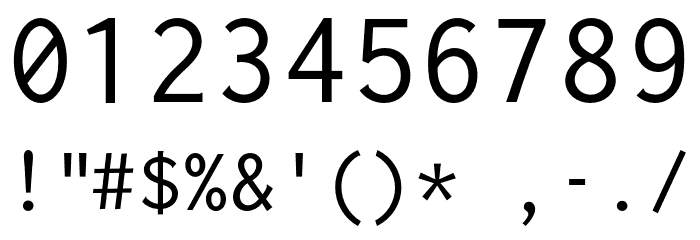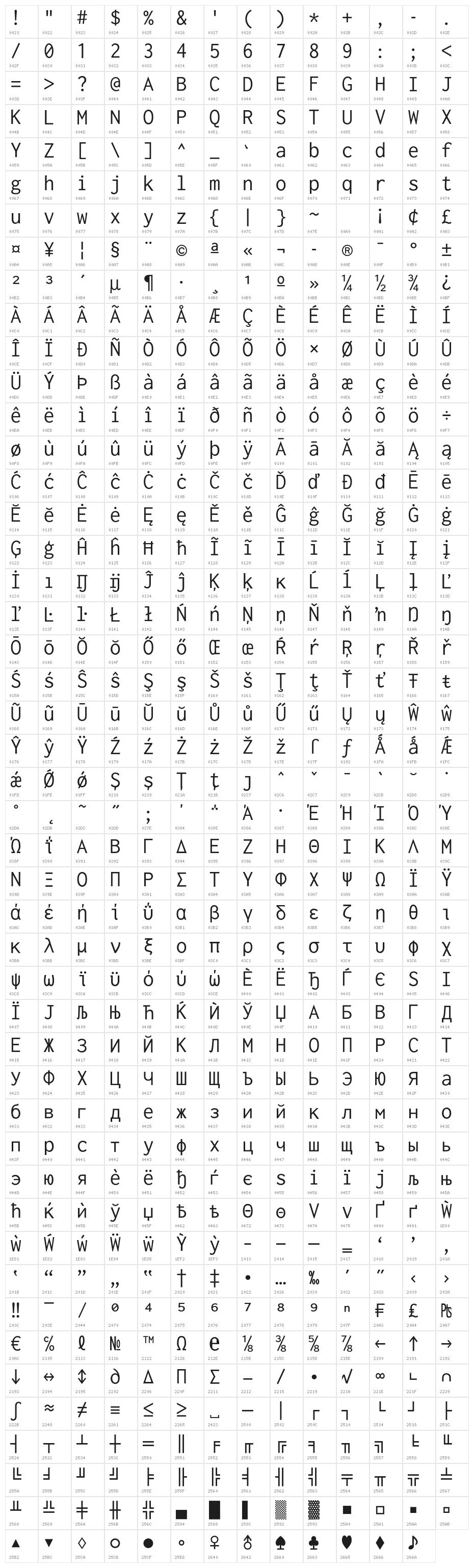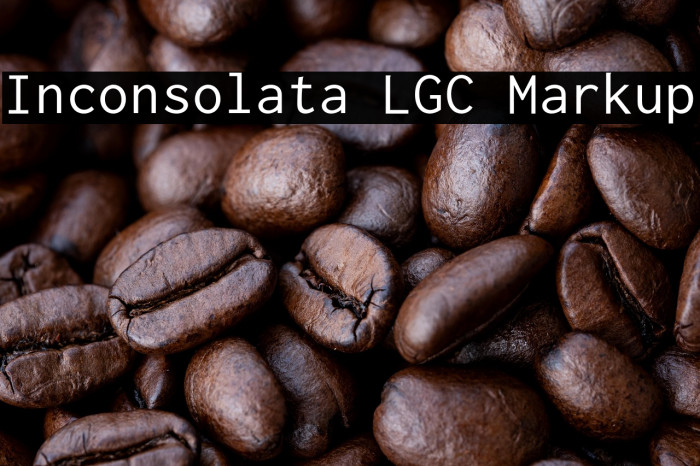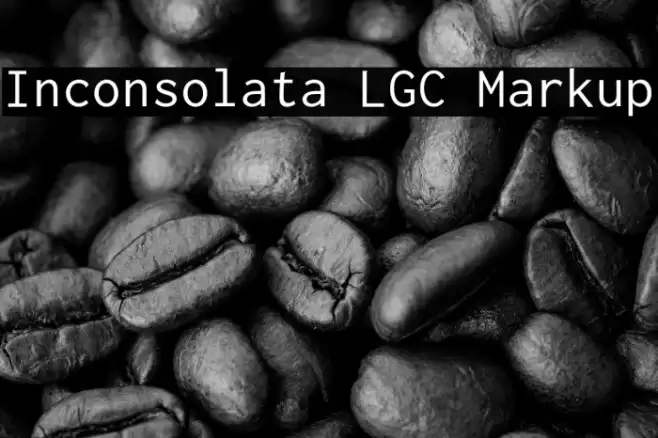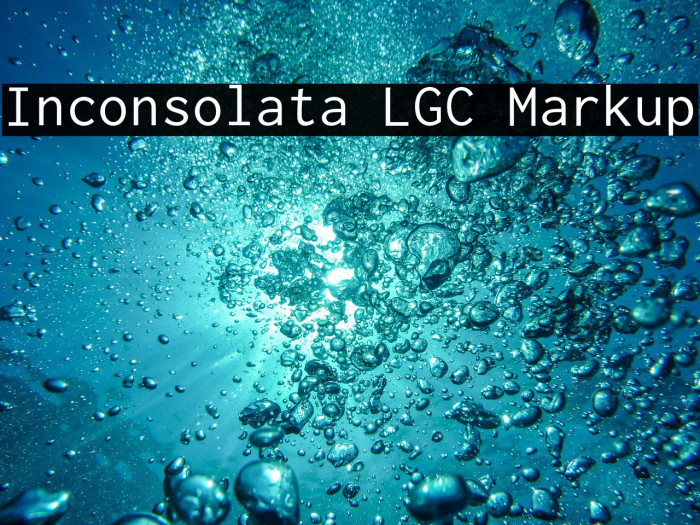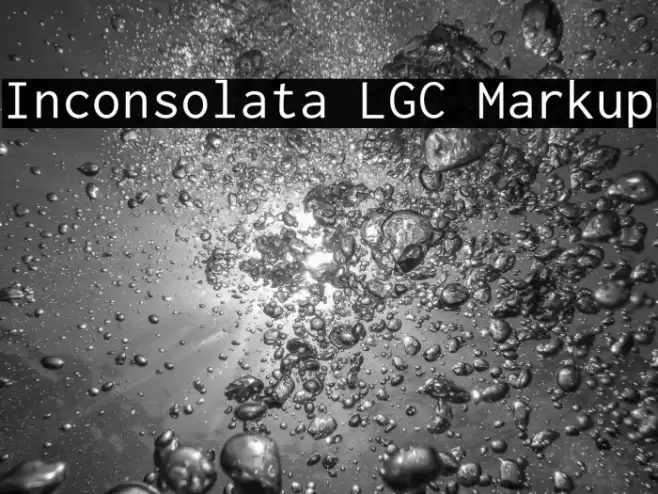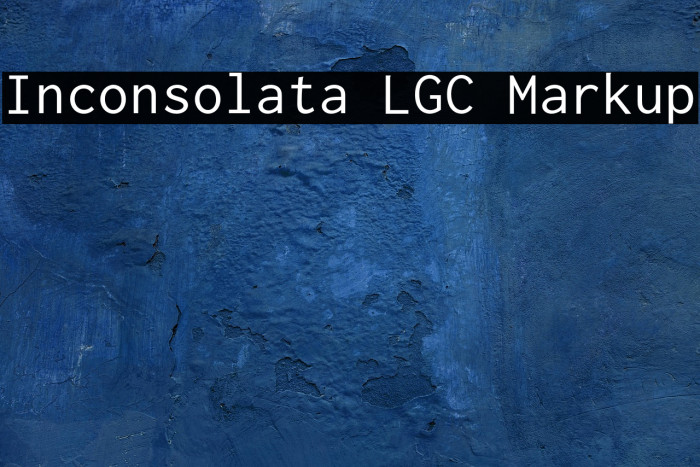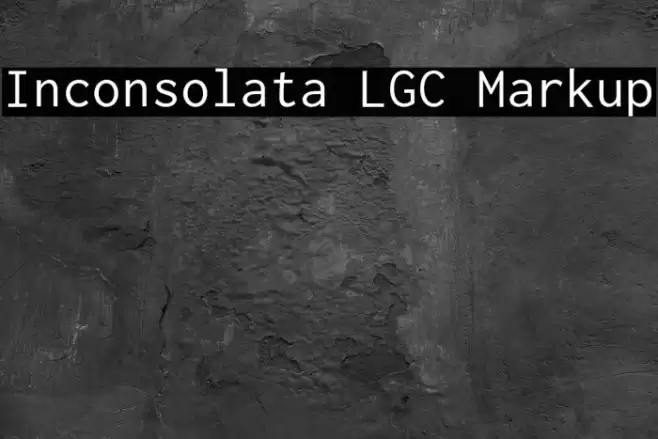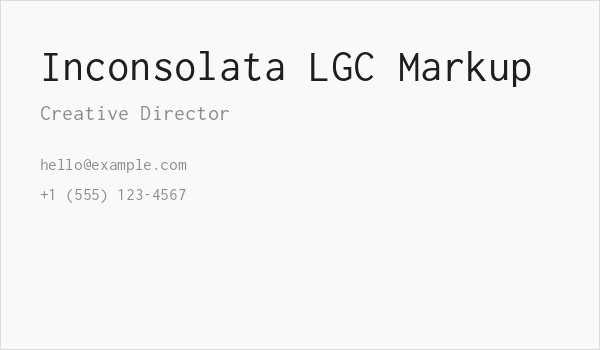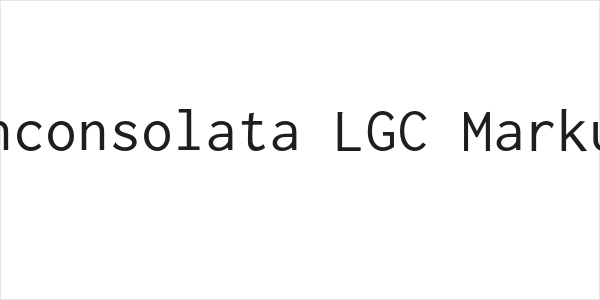
Inconsolata LGC Markup Font
Inconsolata LGC Markup Description
This font is a monospaced typeface with a clean and modern appearance. Each character is designed with consistent width, making it ideal for coding and tabular data. The strokes are uniform, providing a balanced and legible look. The uppercase letters are slightly taller than the lowercase, maintaining clarity and readability. The numerals are distinct and easily distinguishable, which is crucial for technical and numerical data. Special characters are well-defined, ensuring they stand out in any text. The overall design is straightforward, with minimal contrast in stroke thickness, contributing to its functional and utilitarian style.
| Use Case | Coding, Technical documentation, Data tables |
| Proposed Projects | Perfect for coding environments, technical documentation, data tables, and any project requiring precise alignment. |